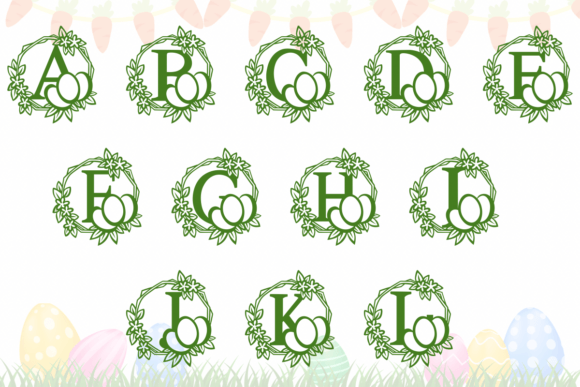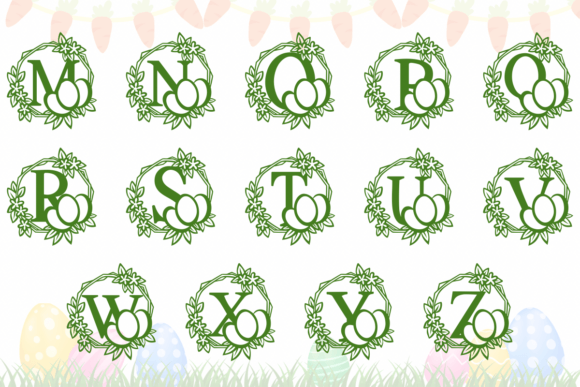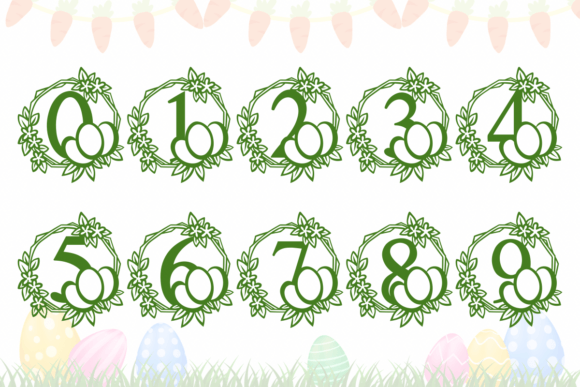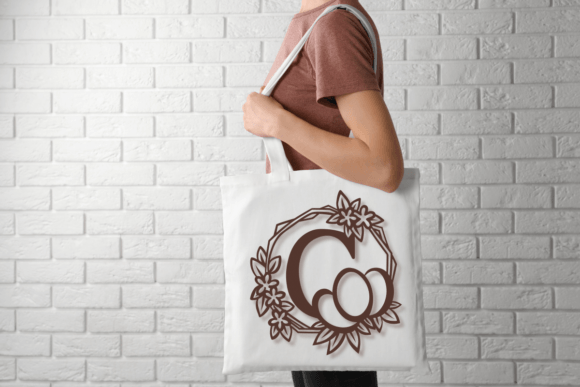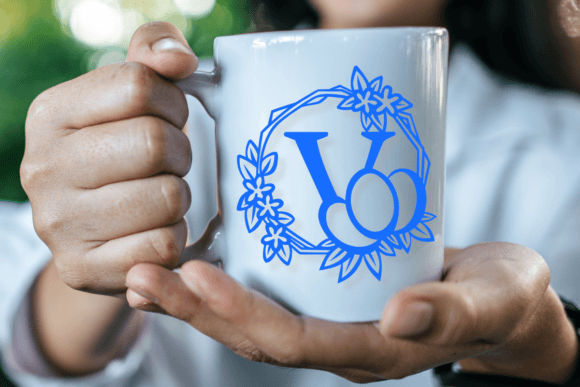
Easter Monogram Font: Elevate Your Designs with this Gorgeous Decorative Font
Are you looking for a beautiful and versatile font to enhance your Easter-themed designs? Look no further than the Easter Monogram Font! This stunning decorative font is perfect for adding a touch of elegance and sophistication to your creations. In this article, we’ll explore the features and uses of the Easter Monogram Font, and show you how to make the most of this gorgeous font.
What is Easter Monogram Font?
Easter Monogram Font is a decorative font designed specifically for Easter-themed designs. Its unique and intricate design makes it perfect for creating beautiful and eye-catching graphics. The font is highly versatile and can be used for a wide range of projects, from personal to commercial.
Features of Easter Monogram Font
The Easter Monogram Font has several features that make it a standout choice for designers and crafters. Some of its key features include:
- Decorative and elegant design: The Easter Monogram Font has a beautiful, intricate design that adds a touch of elegance to any project.
- Highly versatile: The font can be used for a wide range of projects, from greeting cards and stationery to social media posts and banners.
- Scalable: The font is highly scalable, making it perfect for use in large and small designs.
Uses of Easter Monogram Font
The Easter Monogram Font is a versatile font that can be used for a wide range of projects. Here are some ideas to get you started:
- Greeting cards: Create beautiful Easter greeting cards with the Easter Monogram Font.
- Stationery: Add a touch of elegance to your stationery with this gorgeous font.
- Banners: Create eye-catching banners with the Easter Monogram Font.
- Social media posts: Use the font to create engaging and festive social media posts.
- Mugs and cards: Add a personal touch to your mugs and cards with the Easter Monogram Font.
- Shirts and apparel: Create custom Easter-themed shirts and apparel with this beautiful font.
Tips for Using Easter Monogram Font
Here are some tips for getting the most out of the Easter Monogram Font:
- Experiment with different colors: Try out different colors and color combinations to find the perfect look for your design.
- Mix and match with other fonts: Combine the Easter Monogram Font with other fonts to create a unique and interesting look.
- Use it for headings and titles: The Easter Monogram Font is perfect for headings and titles, adding a touch of elegance and sophistication to your designs.
- Don’t be afraid to get creative: The Easter Monogram Font is a versatile font that can be used in many different ways, so don’t be afraid to experiment and try new things.
The Easter Monogram Font is a beautiful and versatile font that’s perfect for adding a touch of elegance and sophistication to your Easter-themed designs. With its decorative and elegant design, highly versatile, easy to use, and scalable features, this font is a must-have for designers and crafters. Whether you’re creating greeting cards, stationery, banners, or social media posts, the Easter Monogram Font is sure to elevate your designs and make them stand out.